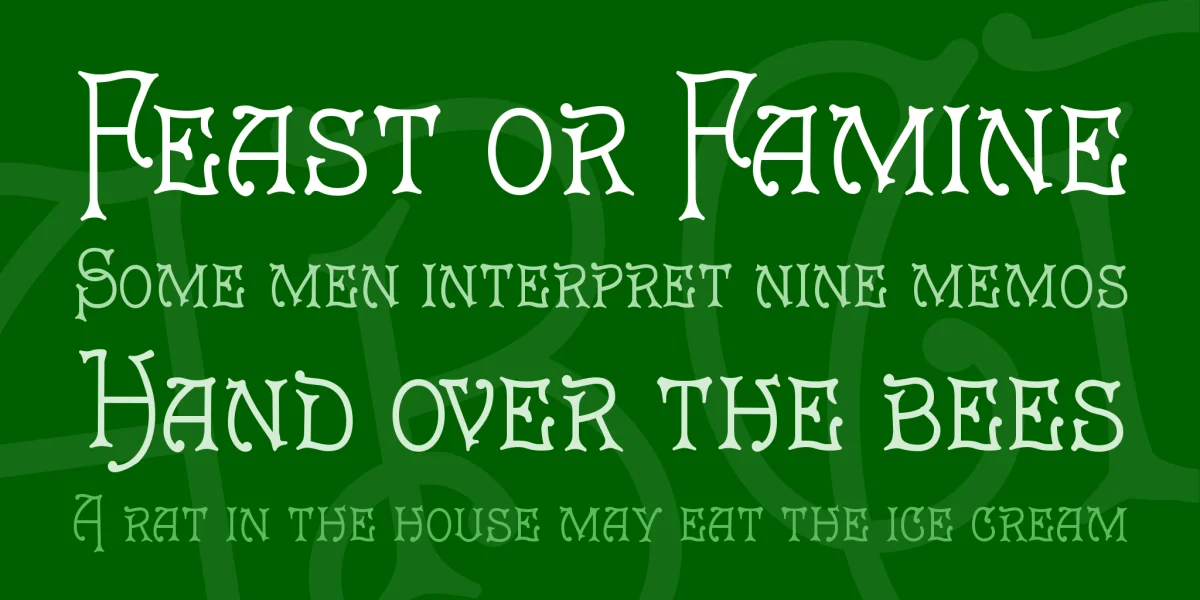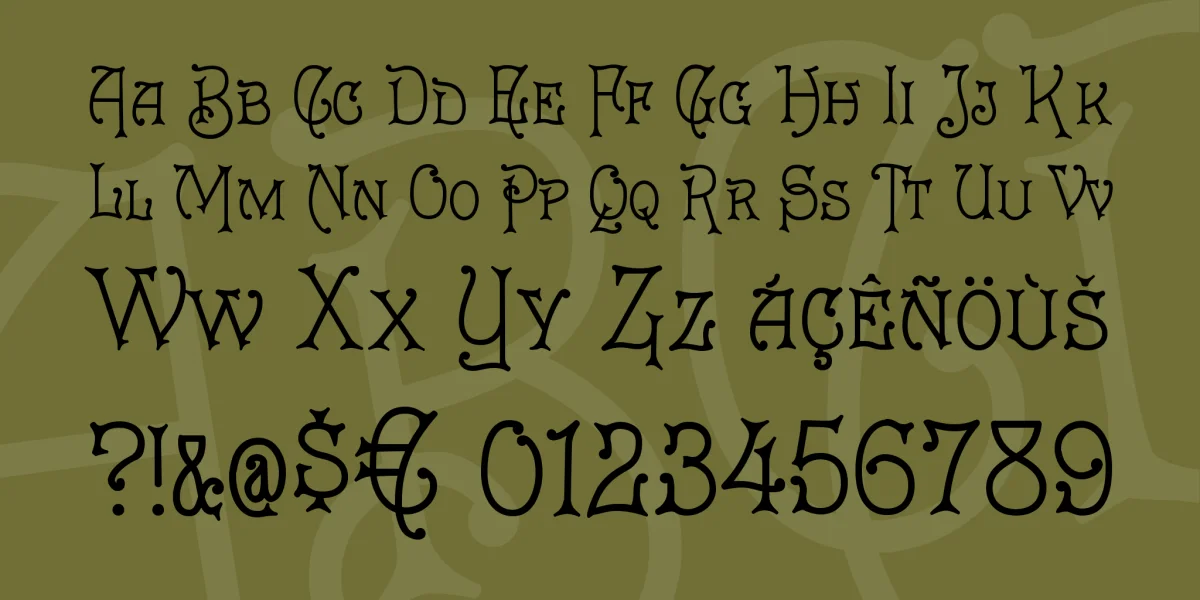
1816: Benjamin cancer adds the inherited from his father bookstore added a foundry and makes a definitive work on the art of printing a name. After he has given little by little the bookstore and print shop to his brother, he is 1857, the foundry to his son and his friend Gustav Rosalino and typeface designer Hermann Poppelbaum. Around 1905, these take the Art Nouveau commercial font Eureka on the program.
2010: After more than 100 years, it is with me now in digital form, some special characters I unfortunately had to reinvent itself, maybe someone of them has the original prints? But also so much fun with it.